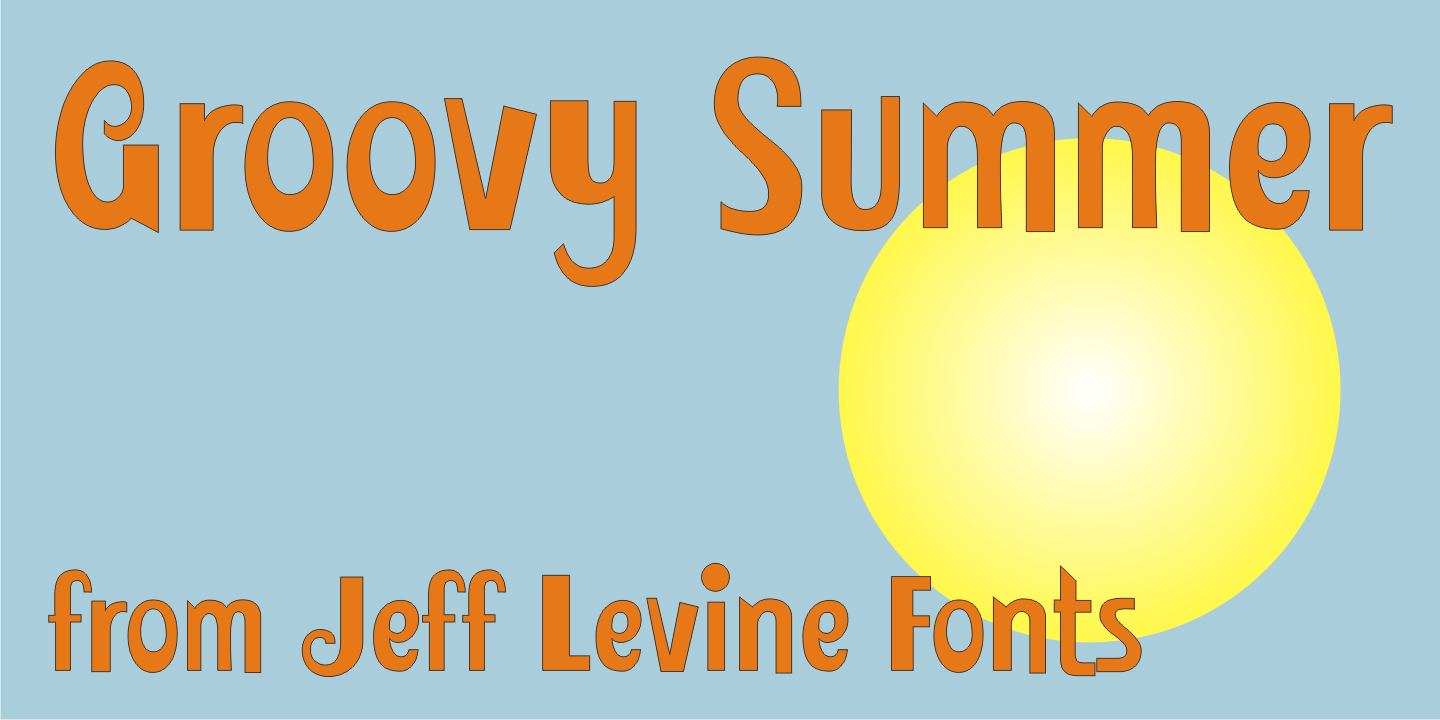
Groovy Summer
Peace, love, togetherness and a fun font from Jeff Levine called Groovy Summer JNL harkens back to the long summer days of the 60's or 70's when life was just a little bit slower and happier...